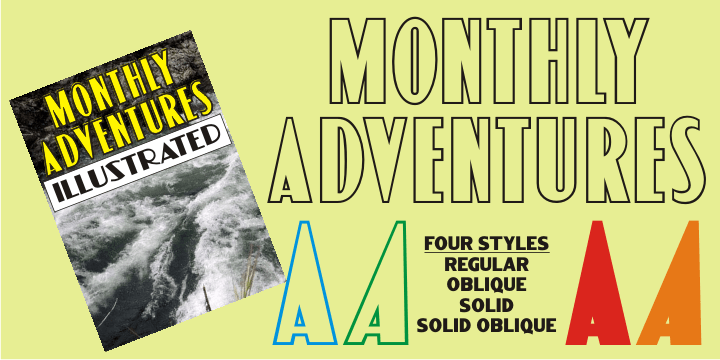
Monthly Adventures JNL is a display sans font family. This typeface has four styles and was published by Jeff Levine Fonts.
The cover lettering of a 1940s issue of a romance comic spotted in an auction online was the inspiration for Monthly Adventures JNL.
Classic in its Art Deco look, this condensed outline font is evocative of the hand-lettered titles used during the Golden Age of the comic book.
Available in both the original outline version and a thick, solid version with the outline removed, as well as oblique variations of both.